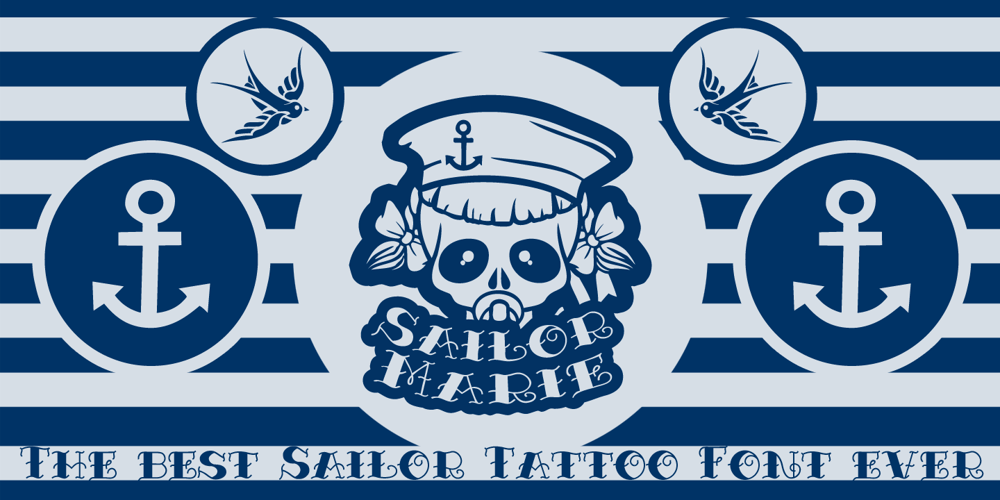
Sailor Marie Font Family was designed by Otto Maurer and published by Otto Maurer. Sailor Marie contains 11 styles and family package options. Sailor Marie is dedicated to my little lovely Daughter Marie. Sailor-Marie is an Oldschool Tattoo-Style Font, made for all Tattooartists of the world. The Tattoos of the 50th like Sailor Jerry are always designed with Fonts like this. The Font comes with many Opentype Feature and an GraphicFontfile wit Banner and more.